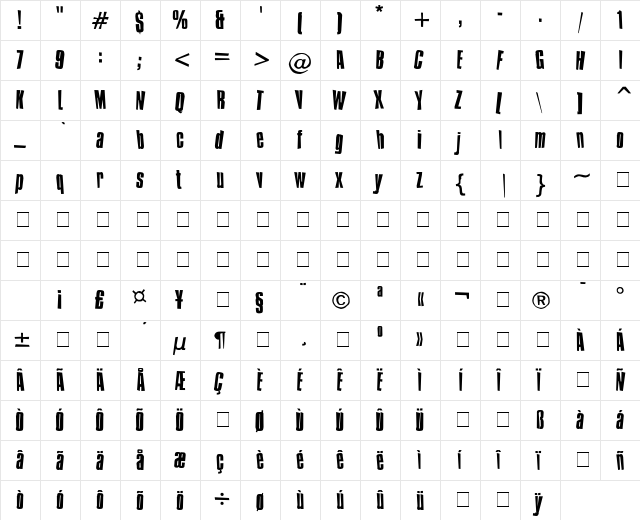
Blue Smolt Regular
Design Context for Blue Smolt Typeface
Blue Smolt is a composed and adaptable typeface that performs quietly and consistently across a wide range of design contexts.